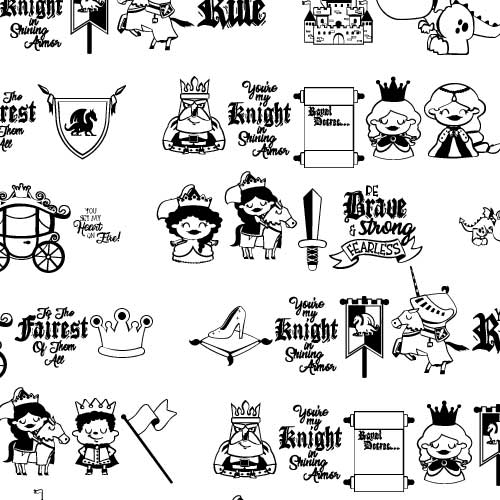
DB Charm and Chivalry - DB
This adorable doodlebat font features 26 royal imagery of princesses, dragons, knights and more! Perfect for cards, crafts, gifts, planner stickers, scrap book pages, decor, parties, classrooms and more!